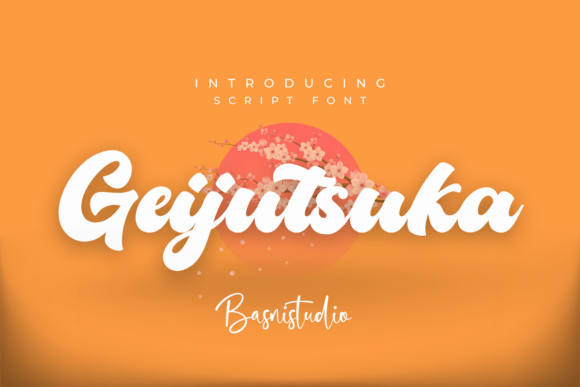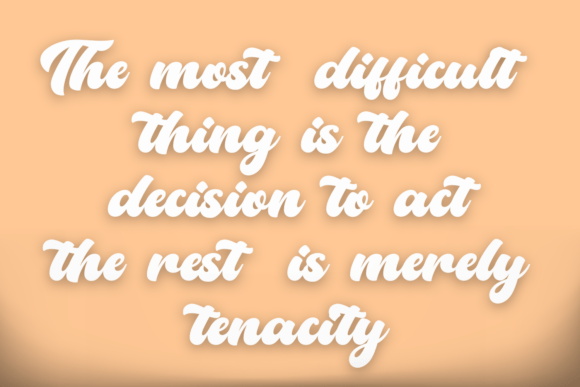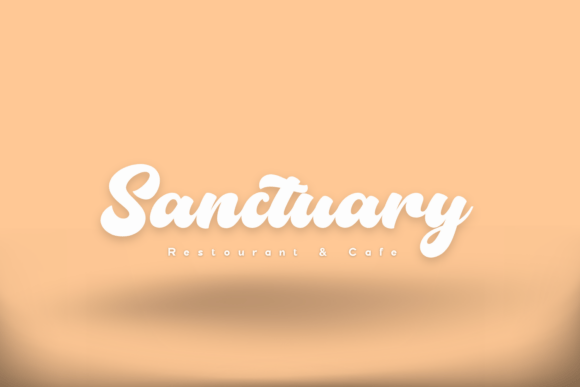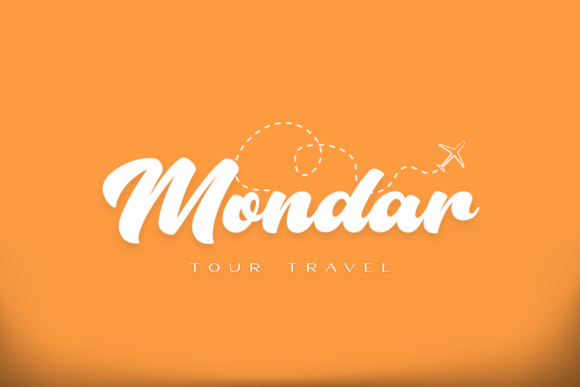
Geijutsuka Font: Bold Script for Headlines & Playful Branding Designs
About the Geijutsuka Font
We are excited to introduce Geijutsuka Font, a must-have typeface for any serious designer. ✨ Introducing Geijutsuka Script Font
Make your message unforgettable.
Geijutsuka isn’t just a font — it’s attitude in every curve, confidence in every letter.
🖋️ Designed for impact
🎨 Perfect for posters, headlines, branding & more
💥 Sharp, stylish, and unapologetically bold
Geijutsuka’s strong, bold strokes make it ideal for headlines, short impactful statements, logos, and branding projects requiring a confident and assertive presence. It excels in posters and packaging where visual impact is paramount. However, its highly stylized nature makes it unsuitable for body text or lengthy passages; readability suffers at smaller sizes.
Consider pairing Geijutsuka with a clean sans-serif like Montserrat for a balanced contrast, or a more delicate serif like Garamond for a sophisticated, high-contrast combination. For a modern edge, a geometric sans-serif such as Futura would create a striking juxtaposition.
The font’s personality is undeniably bold and assertive, conveying a sense of modern sophistication and artistic flair. It’s best suited for brands aiming for a memorable and impactful visual identity—think high-fashion, luxury goods, or edgy creative agencies.